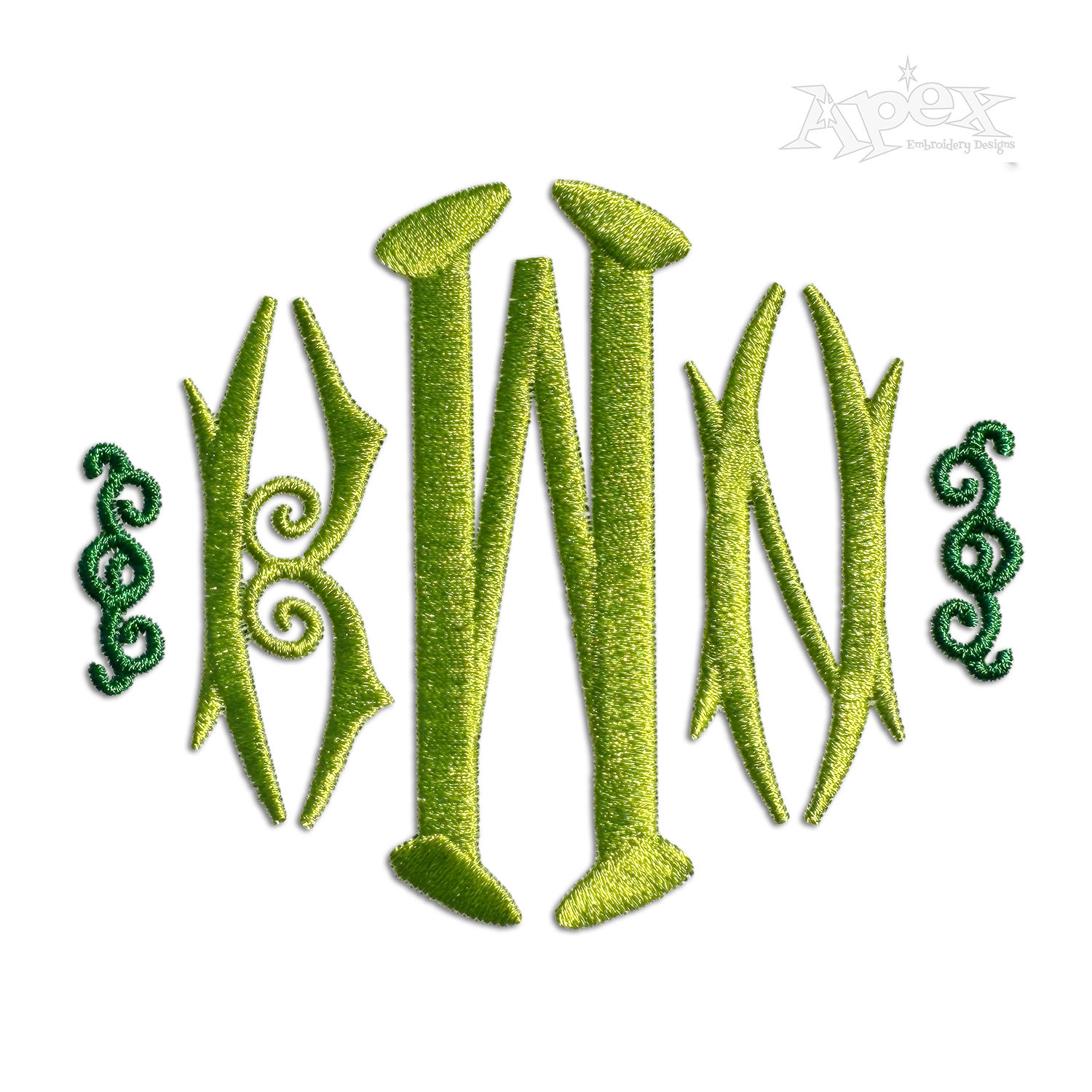
Hampton Monogram Embroidery Font
Conceived with the effortless elegance of seaside verandas, sun-bleached cedar shingles, and crisp maritime breezes in mind, the Hampton Monogram Embroidery Font elevates custom monogramming into an enduring textile art form. We digitized this classic three-letter initial alphabet to capture the poise of American heritage style?clean architectural lines softened by gentle transitional curves and stately proportions. As the needle glides across fine fibers, every column of high-sheen satin stitch catches the ambient light with diamond-like clarity, bringing tailored refinement to personal heirlooms, bespoke gifts, and understated coastal interiors.
- Full 3-Letter Monogram Alphabet ? Features balanced side and center letters engineered to compose perfectly aligned, balanced initials with timeless decorative symmetry.
Hampton Monogram Craft & Letterform Details
The soul of the Hampton Monogram lives in its digital engineering. Monograms with stately serifs demand far more than automated conversion; they require deliberate stitch planning to prevent fiber distortion and edge feathering. Each letterform in this set has been manually digitized with variable stitch angles that pivot gracefully through every corner, ensuring the satin thread flows around turns without bunching or creating dense thread knots underneath.
We have integrated custom-calibrated underlay structures tailored specifically for each height. A structural edge-run skeleton stabilizes delicate woven fibers, followed by an interior traveling zig-zag that creates a supportive foundation, giving the top satin stitches an embossed, three-dimensional lift without stiffness. Generous pull compensation balances the natural lateral tension of tight satin stitching, keeping straight lines ruler-flat and serifs sharp on everything from diaphanous batiste to dense terrycloth. The result is a clean, museum-quality finish on both the front and the back of your heirloom projects.